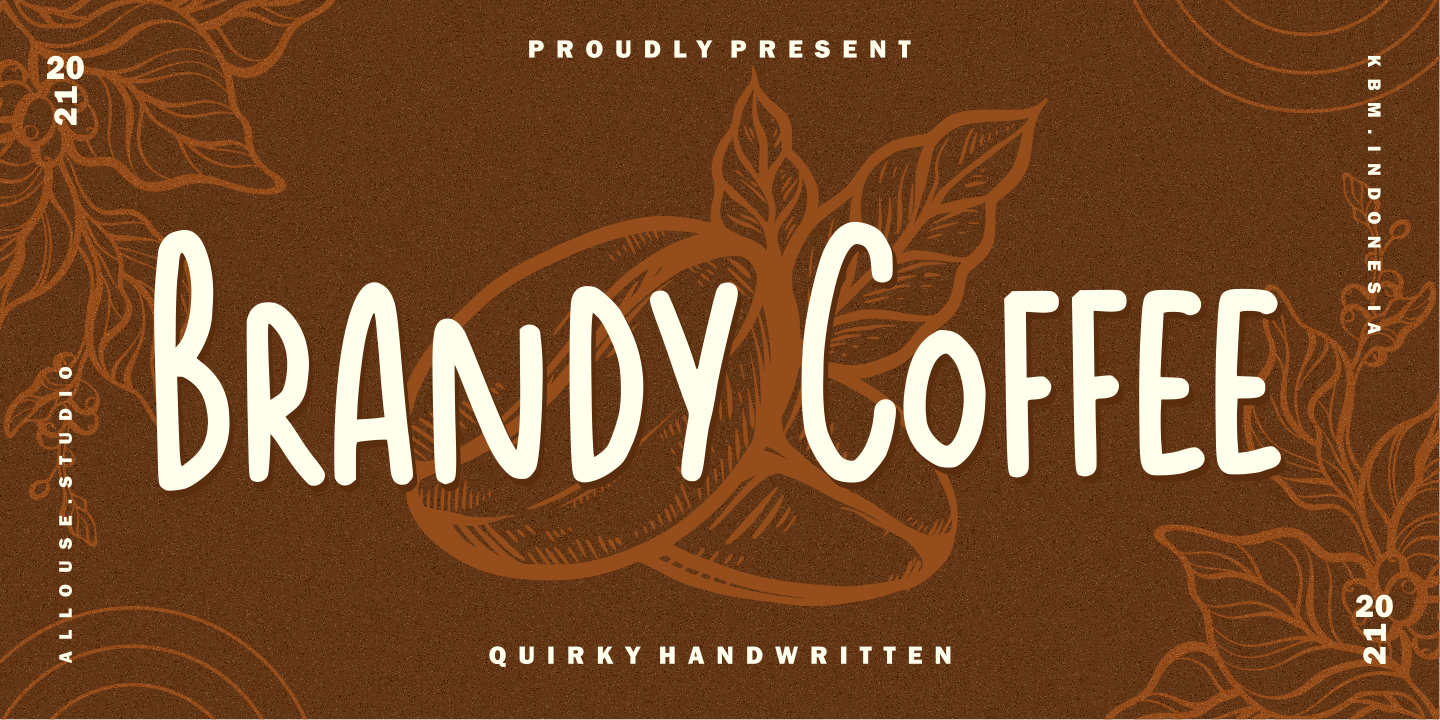
Brandy Coffee Font is a warm and inviting script typeface that perfectly captures the cozy and artisanal feel of your favorite coffee shop. Ideal for cafe branding, menus, packaging, invitations, and lifestyle blogs.
What makes Brandy Coffee Font Free Download so exciting is its natural handwritten style with smooth, flowing strokes that evoke a sense of comfort and creativity. It adds a personal, handcrafted touch that resonates with audiences.
The Brandy Coffee Font family includes styles like Regular and Bold, allowing for versatile use in different design contexts while maintaining its friendly and authentic character.
Whether you’re designing for coffee shops, artisan brands, or creative projects, Brandy Coffee Font Free Download offers warmth and personality that helps your visuals stand out and feel welcoming.